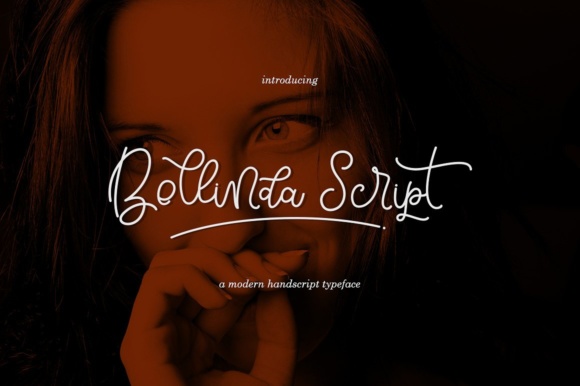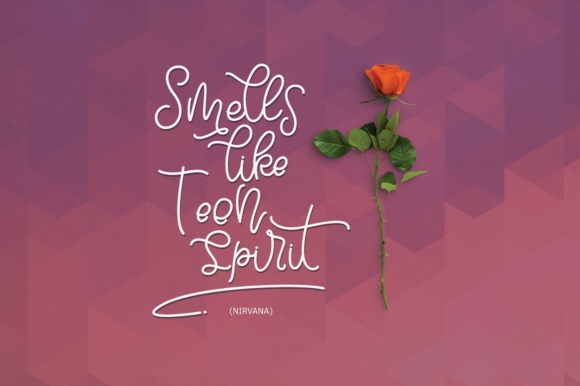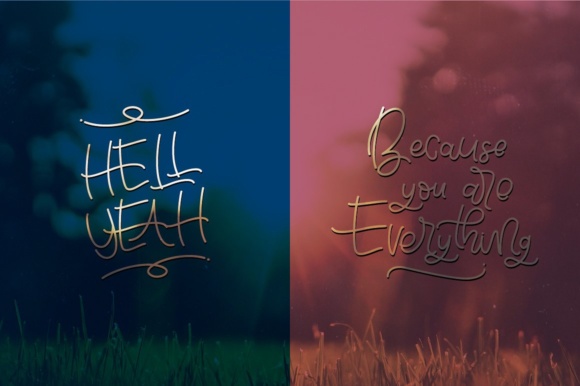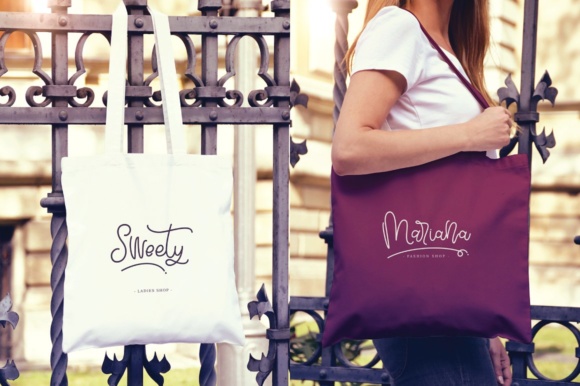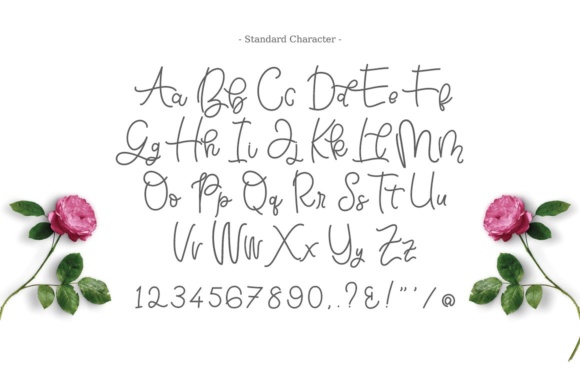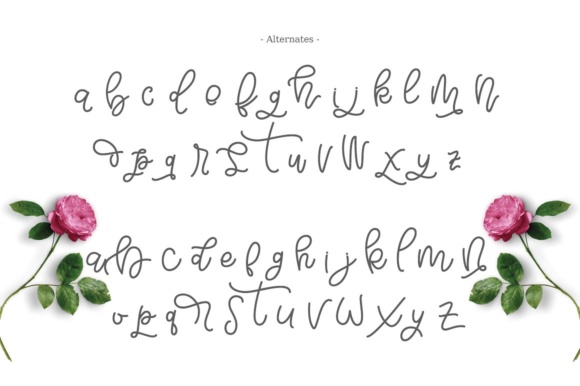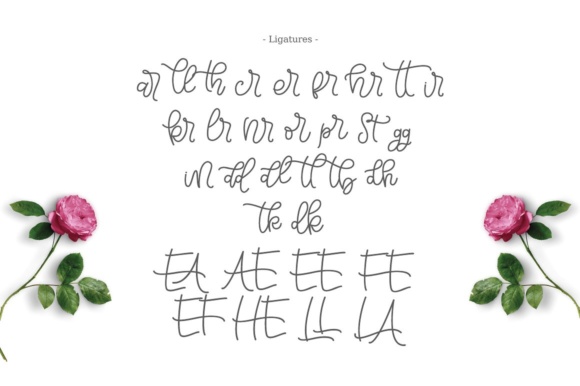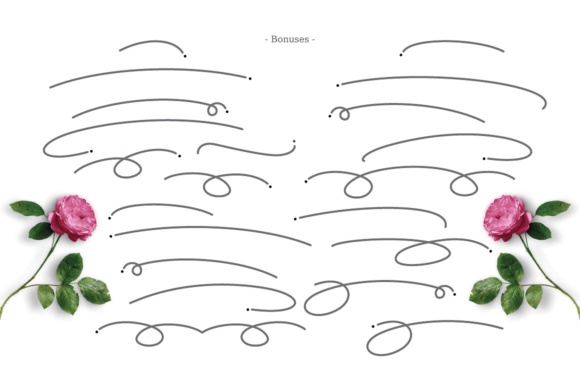
Bellinda Script Font
About Bellinda Script Font
The Bellinda Script is a simple, handwritten script that will help you add a personal touch to your designs in an instant.